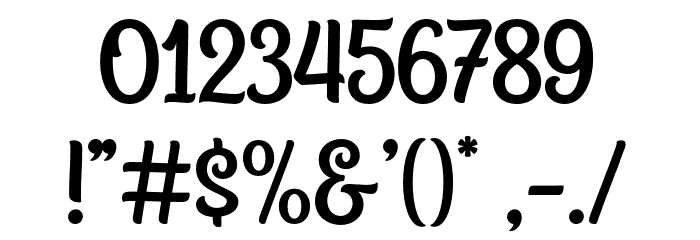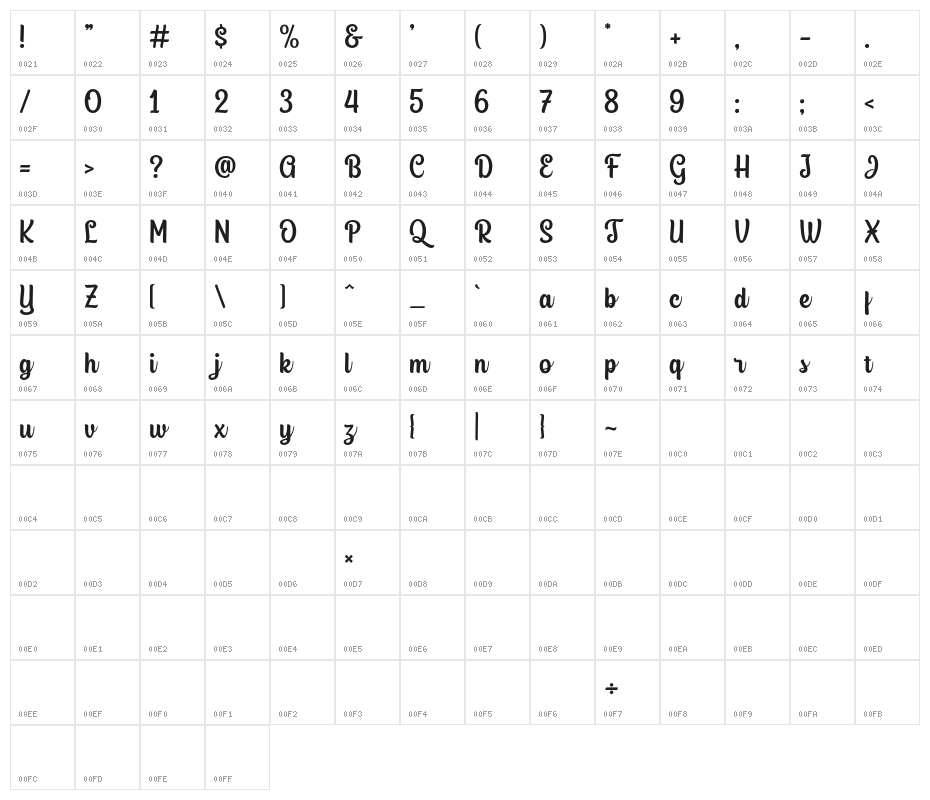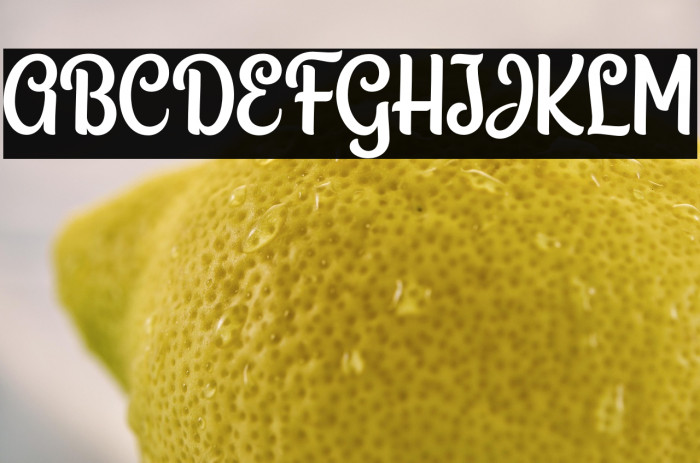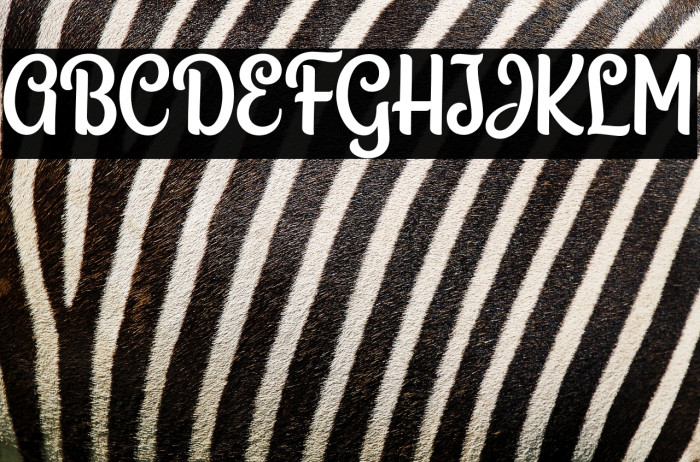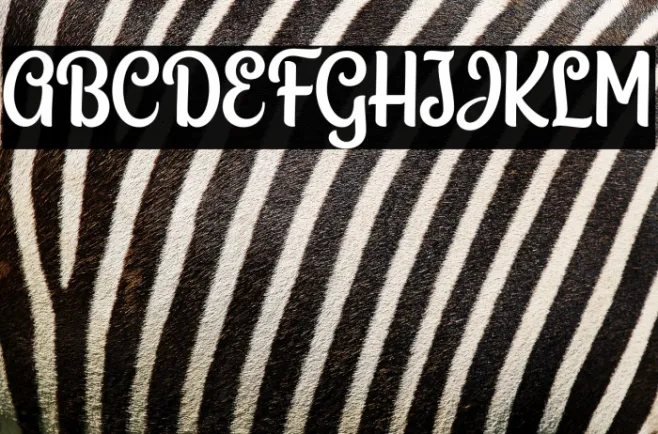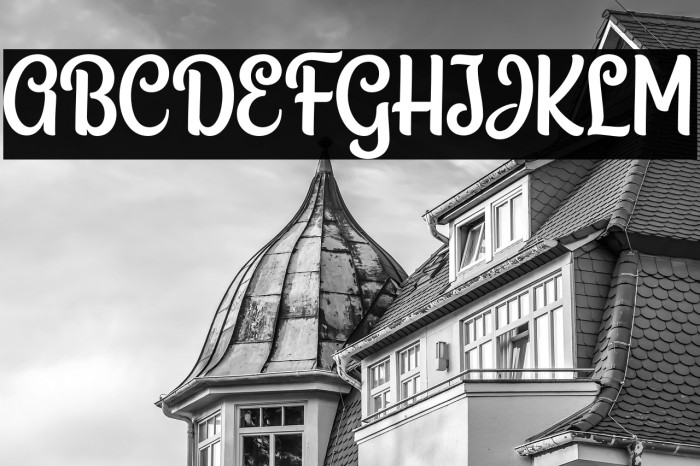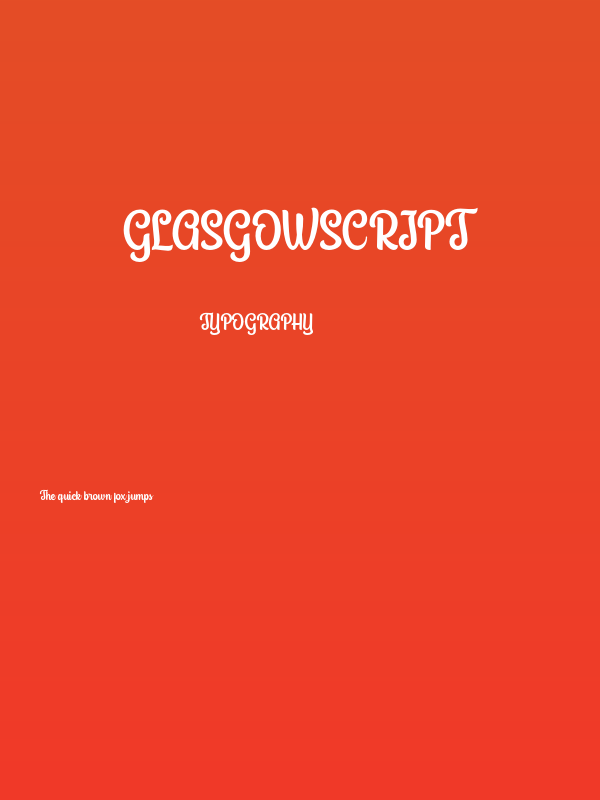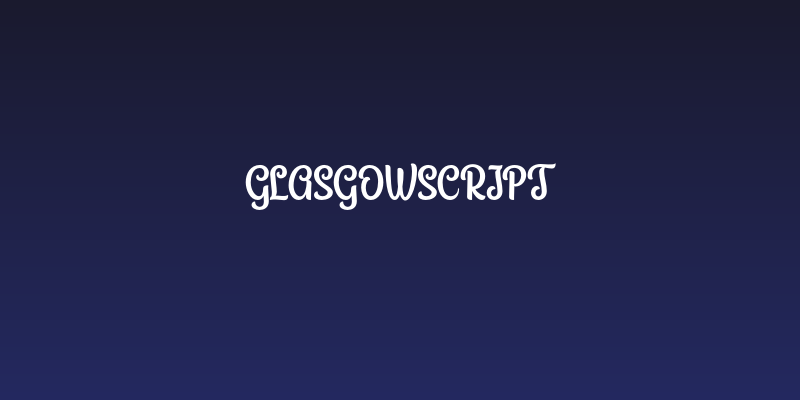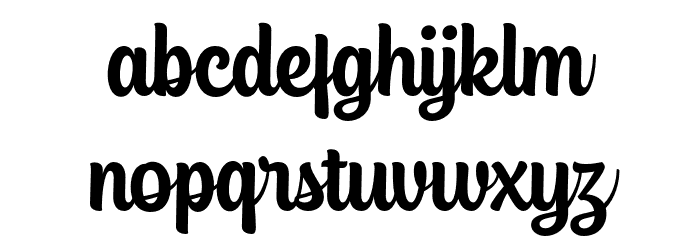
GlasgowScript Font
GlasgowScript Description
This font features a playful and flowing script style, characterized by its bold and rounded letterforms. The uppercase letters exhibit a whimsical flair with smooth curves and a consistent stroke width, creating a harmonious and inviting appearance. The lowercase letters maintain the same lively spirit, with some letters featuring distinctive loops and swashes that enhance the overall aesthetic. The numerals are clear and legible, matching the boldness of the alphabet. Special characters are thoughtfully designed to complement the script style, adding to the font's versatility. This font is ideal for projects that require a friendly and approachable touch.